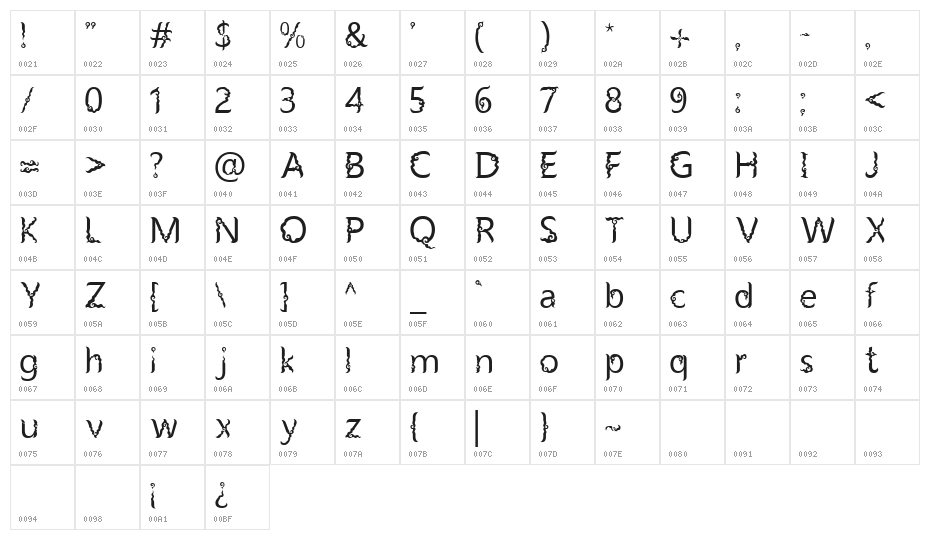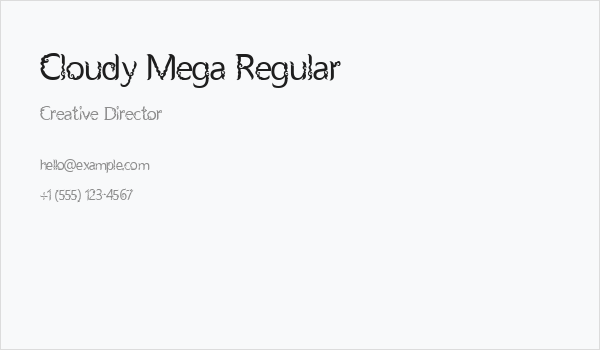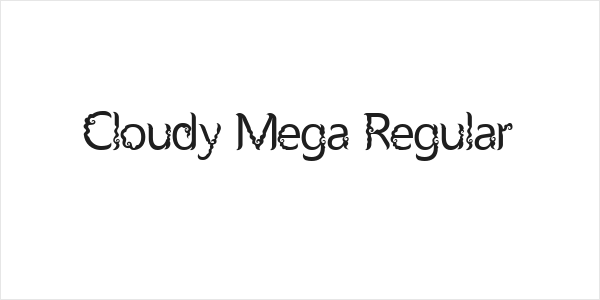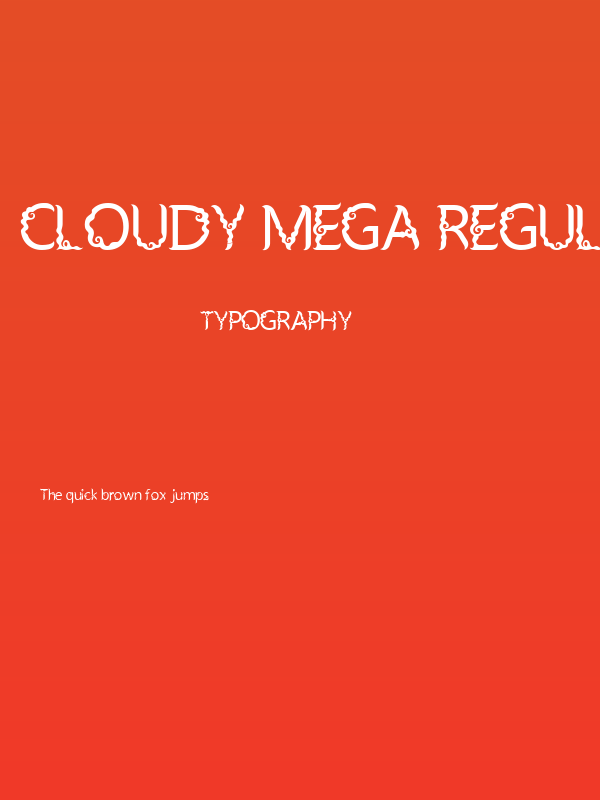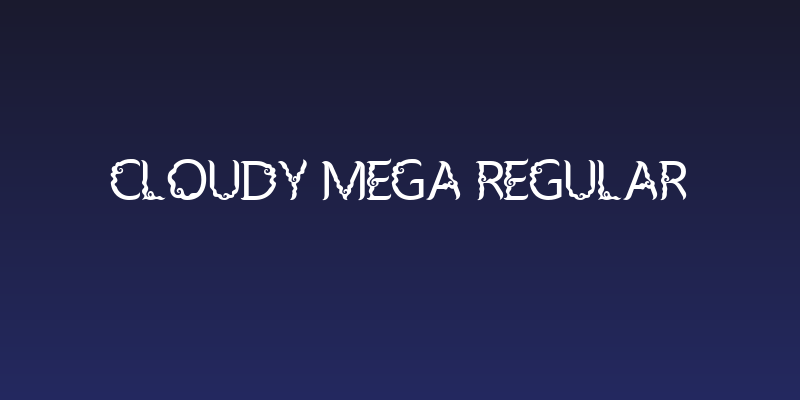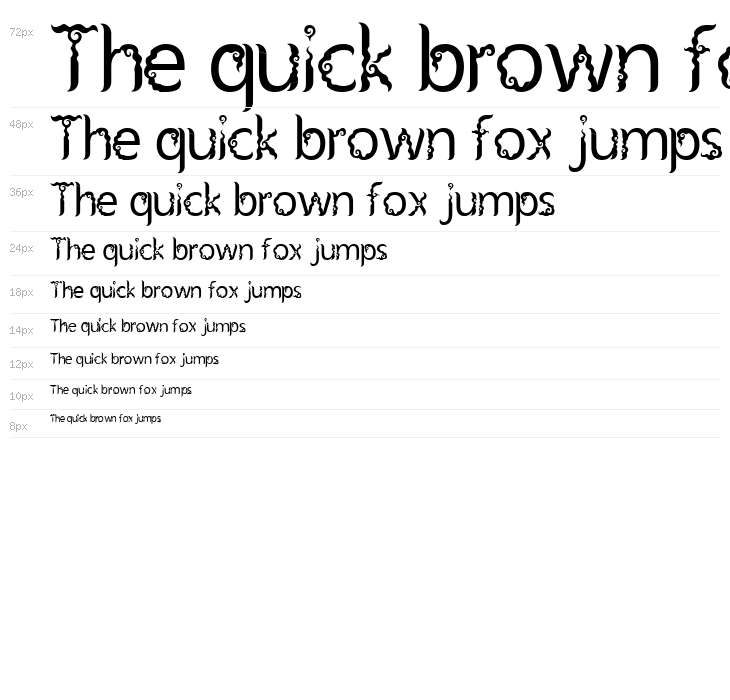
Cloudy Mega Regular Font
Cloudy Mega Regular Description
This font features a whimsical and decorative style, characterized by playful curls and flourishes that extend from the main strokes of each character. The uppercase and lowercase letters maintain a consistent height, with unique embellishments that give the font a lively and dynamic appearance. The numbers and special characters follow the same decorative theme, ensuring a cohesive look across all glyphs. The font's design is both eye-catching and distinctive, making it suitable for creative and artistic projects where a touch of flair is desired.
| Use Case | Headlines, Logos, Artistic projects |
| Proposed Projects | Ideal for invitations, greeting cards, posters, and branding that require a playful and artistic touch. |